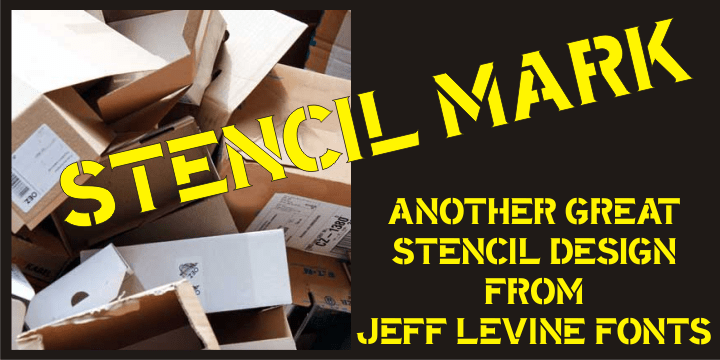
Stencil Mark
The set of vintage brass alphabet stencils that inspired Stencil Mark JNL was manufactured by the Chicago Firm of Meyer and Wenthe. Pete Skoglund of Unadilla, NY was selling a set of these stencils on ebay®, and was nice enough to provide Jeff Levine some images to use as models for the design of this typeface.
Stencil Mark JNL Regular by Jeff Levine Fonts